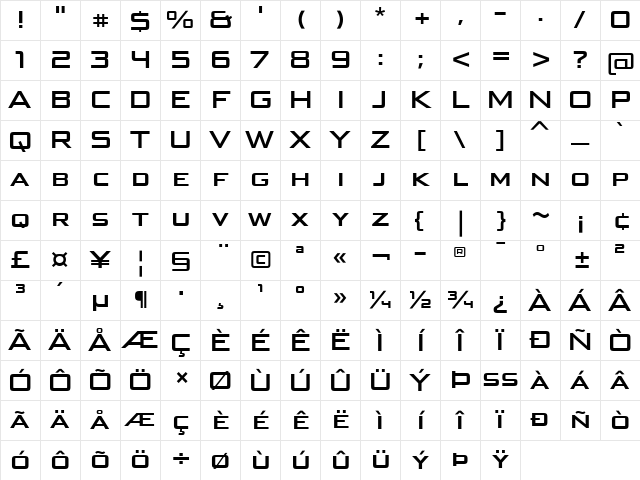
BunkenTechSansSCWide-SeBd & Free Font
BunkenTechSansSCWide-SeBd &
Style: &
Foundry: Buntype
Designer: Ralf Sander and Petra Niedernolte
Design Context for BunkenTechSansSCWide-SeBd
BunkenTechSansSCWide-SeBd has a distinctly futuristic character, with geometric precision and clean angles that feel at home in technology, gaming, and sci-fi contexts.
Pro Tip: Try BunkenTechSansSCWide-SeBd with generous letter-spacing in UI labels and navigation - the geometric forms benefit from room to breathe.
Who designed the BunkenTechSansSCWide-SeBd & font?